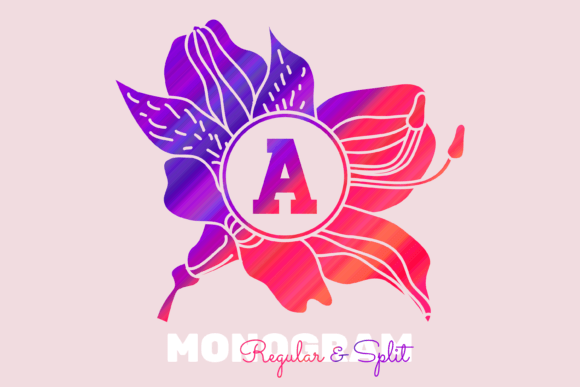
The Elegant Alstroemeria Font: A Designer’s Delight
I still remember the design project that led me to discover the beautiful Alstroemeria Font. I was working on a custom wedding invitation for a client who wanted something elegant and sophisticated. As I scrolled through font options, I stumbled upon Alstroemeria Monogram Duo, and it instantly caught my eye. The elegant botanical design and duo styles (regular & split) seemed perfect for adding a special touch to the invitation. In this article, I’ll share my experience with Alstroemeria Font, its features, and how to make the most of it in your designs.
An Honest Review of Alstroemeria Font
- ✨ Elegant and sophisticated design, perfect for botanical-themed projects
- ✅ Duo styles (regular & split) offer versatility and creative freedom
- 💐 Beautifully crafted glyphs and OpenType features for added customization
- 🎨 Ideal for use in custom designs, DIY crafts, and creative projects
While Alstroemeria Font is a stunning addition to any design project, there are a few things to keep in mind:
- 🤔 Limited character set compared to other fonts, which might limit its use in certain projects
- ⚠️ May require additional design elements to achieve a balanced look
The Designer Inspiration Behind Alstroemeria Font
Alstroemeria Font was inspired by the beautiful Alstroemeria flower, also known as the Peruvian lily. The font’s designer aimed to capture the elegance and sophistication of this flower in a unique and creative way. The result is a stunning font that adds a touch of botanical charm to any design project.
Alstroemeria Font is an elegant botanical decorative font consisting of duo styles (regular & split). It’s ideal for adding a special touch to custom designs, DIY crafts, and creative projects.